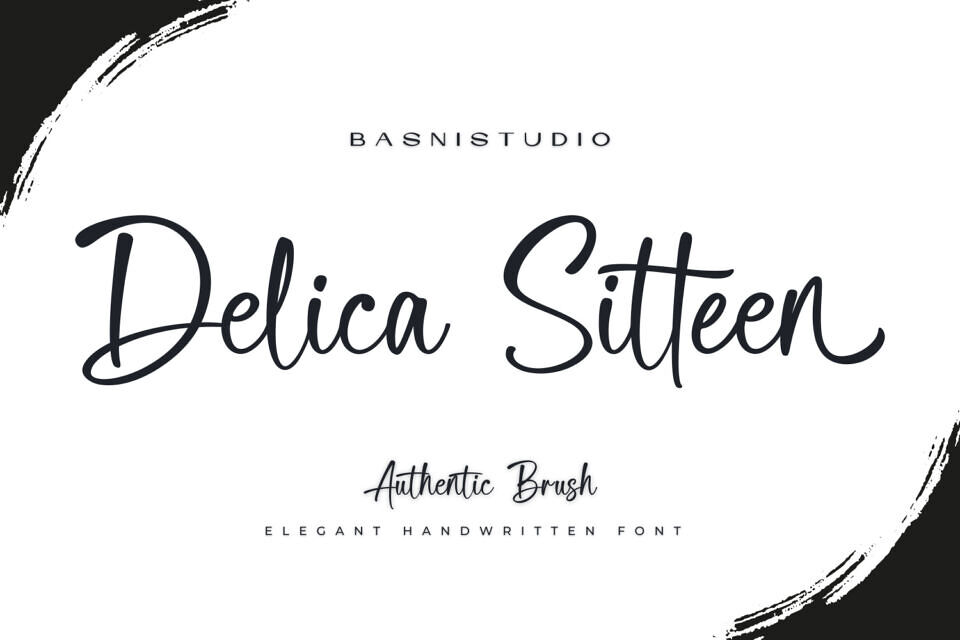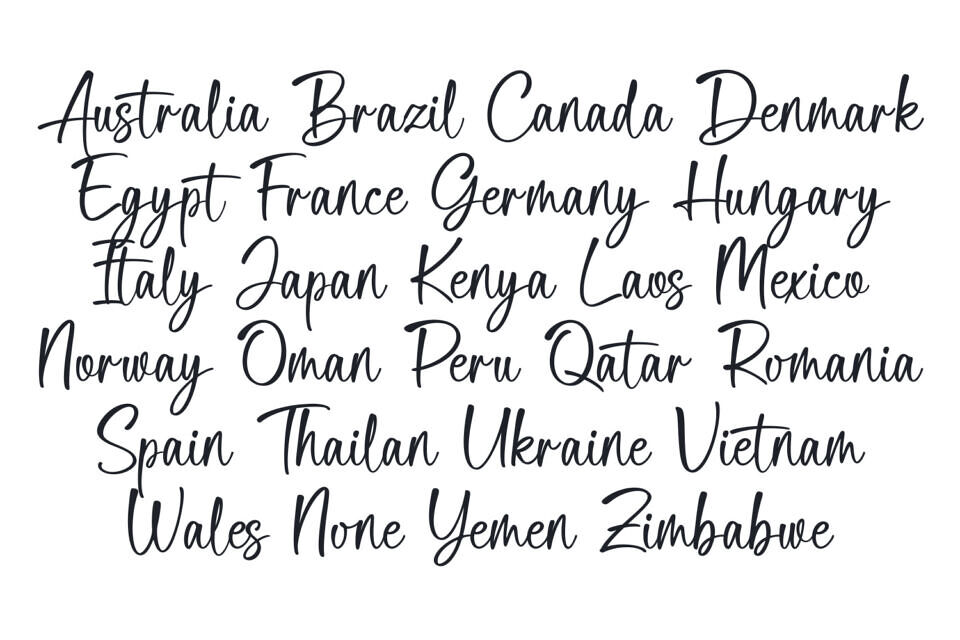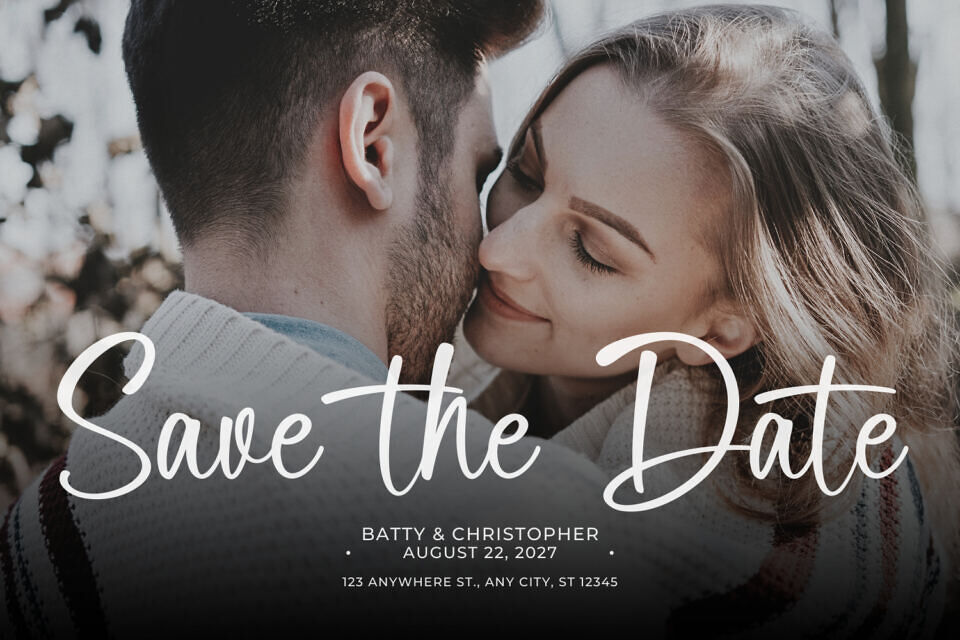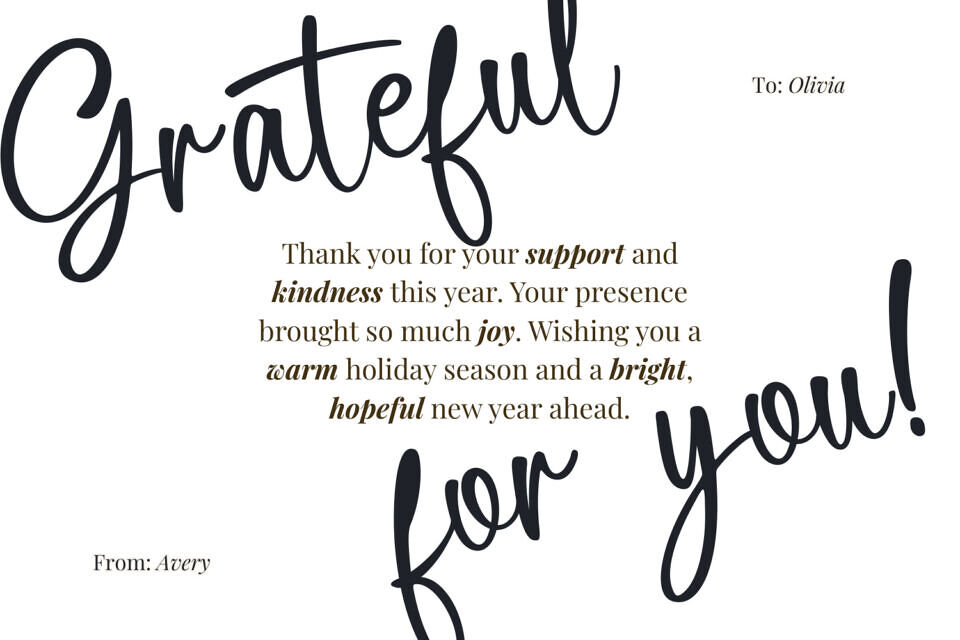
Delica Sitteen is a casual, handwritten font perfect for adding a personal touch to branding, social media, and more. Created with real pen strokes, it offers a natural, authentic feel.
Easy to use, it works with major design programs, making it ideal for taglines, quotes, and greeting cards. Whether building a brand or crafting a design, Delica Sitteen provides the creative edge needed to stand out. Its natural look and casual style make it versatile and effective.